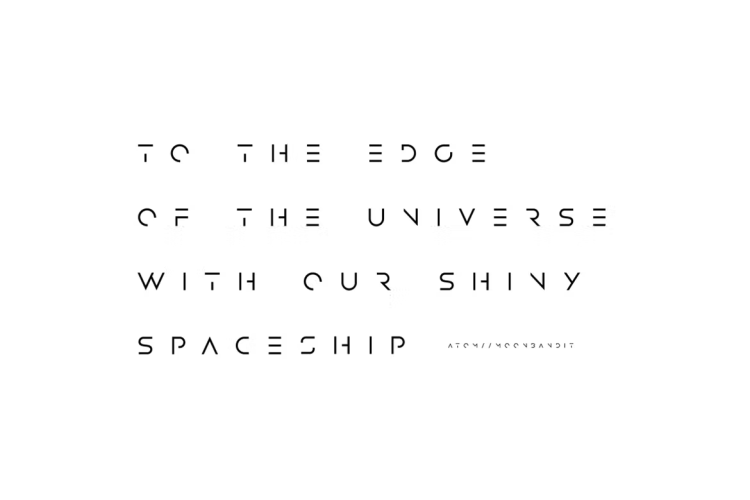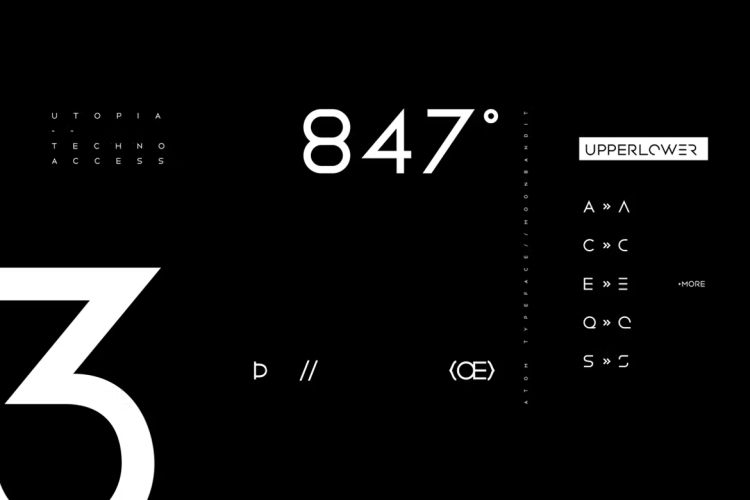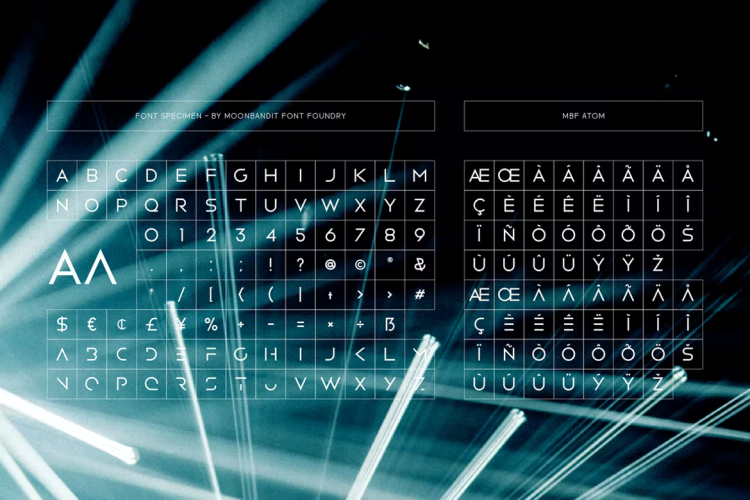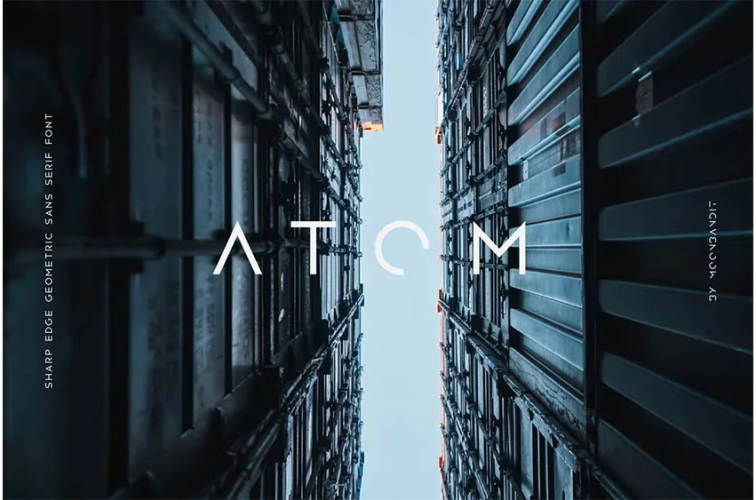
Atom Font
Atom Font is a new generation of an all caps futuristic sans serif font. Thin geometric lines with sharp edges to ensure a striking exposure. Perfect for display, logotype, headline, and many more. Easy to use, simply manage the lowercase to acquire the alternative glyphs.
Where Atom Font works best
Atom Font keeps its shape at 14 and 16 pixels, which is where interface text actually lives. Numbers and capitals stay distinguishable in tables.
Presentations are read at a distance; a clean sans with a strong bold is the safest hierarchy you can build in a hurry.
Simple letterforms survive angles, glare and movement, so Atom Font suits door signs, menus boards and exhibition panels.
What kind of work does Atom Font suit?
It sits in the Sans Serif Fonts group and reads as display, geometric, sans serif, sans serif fonts. That makes it a candidate wherever those qualities help: headings, packaging, social graphics and brand work. Set it at the size you plan to use before deciding.